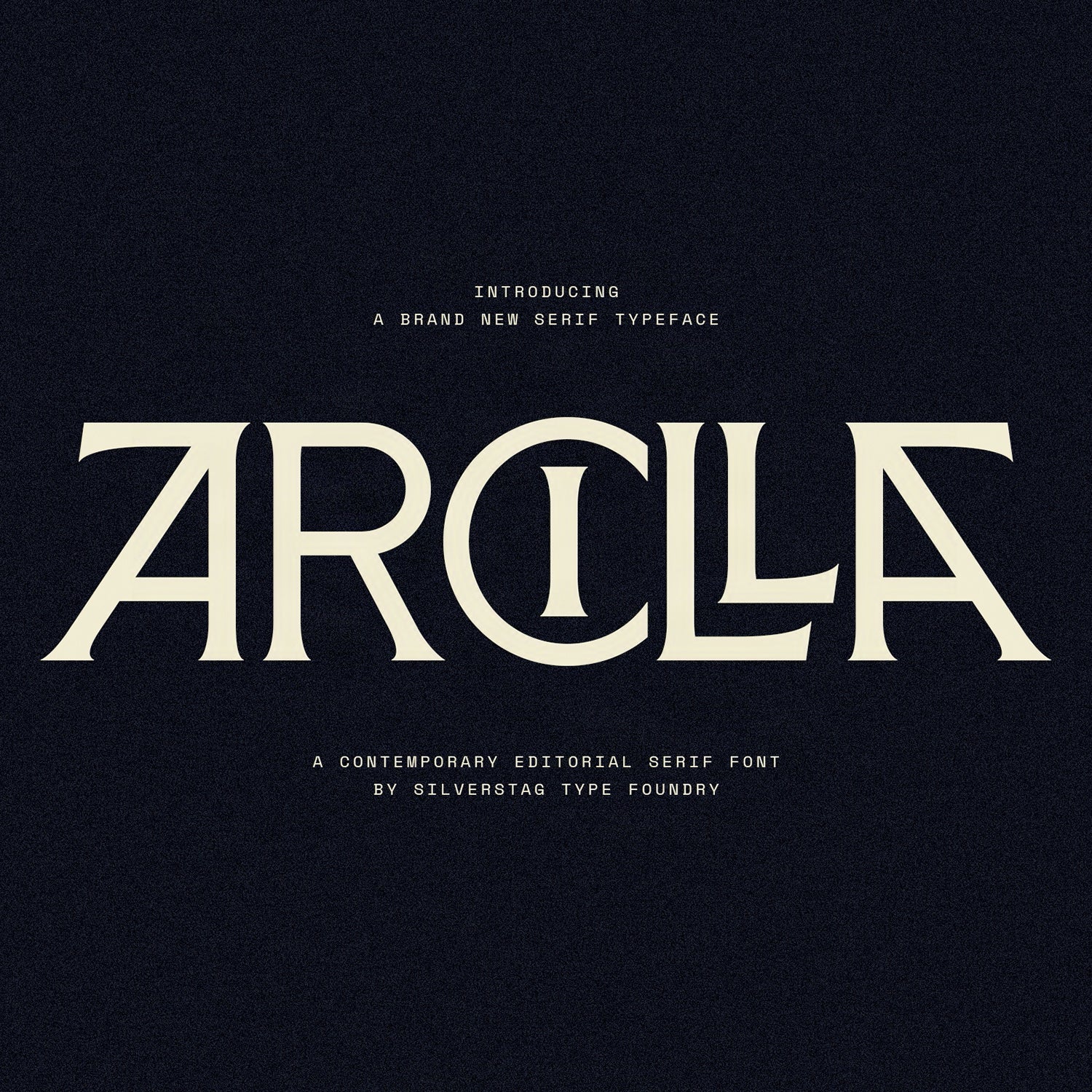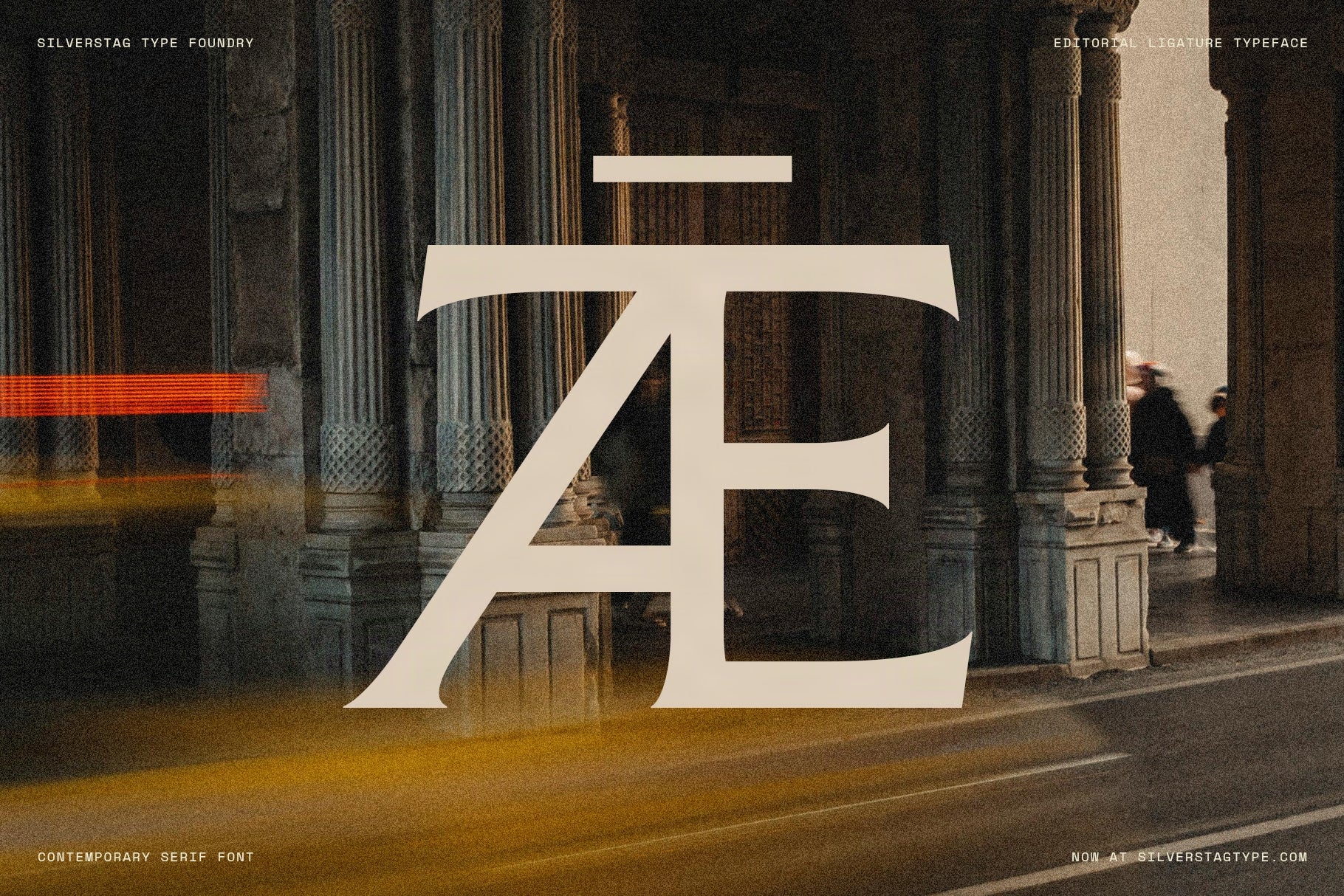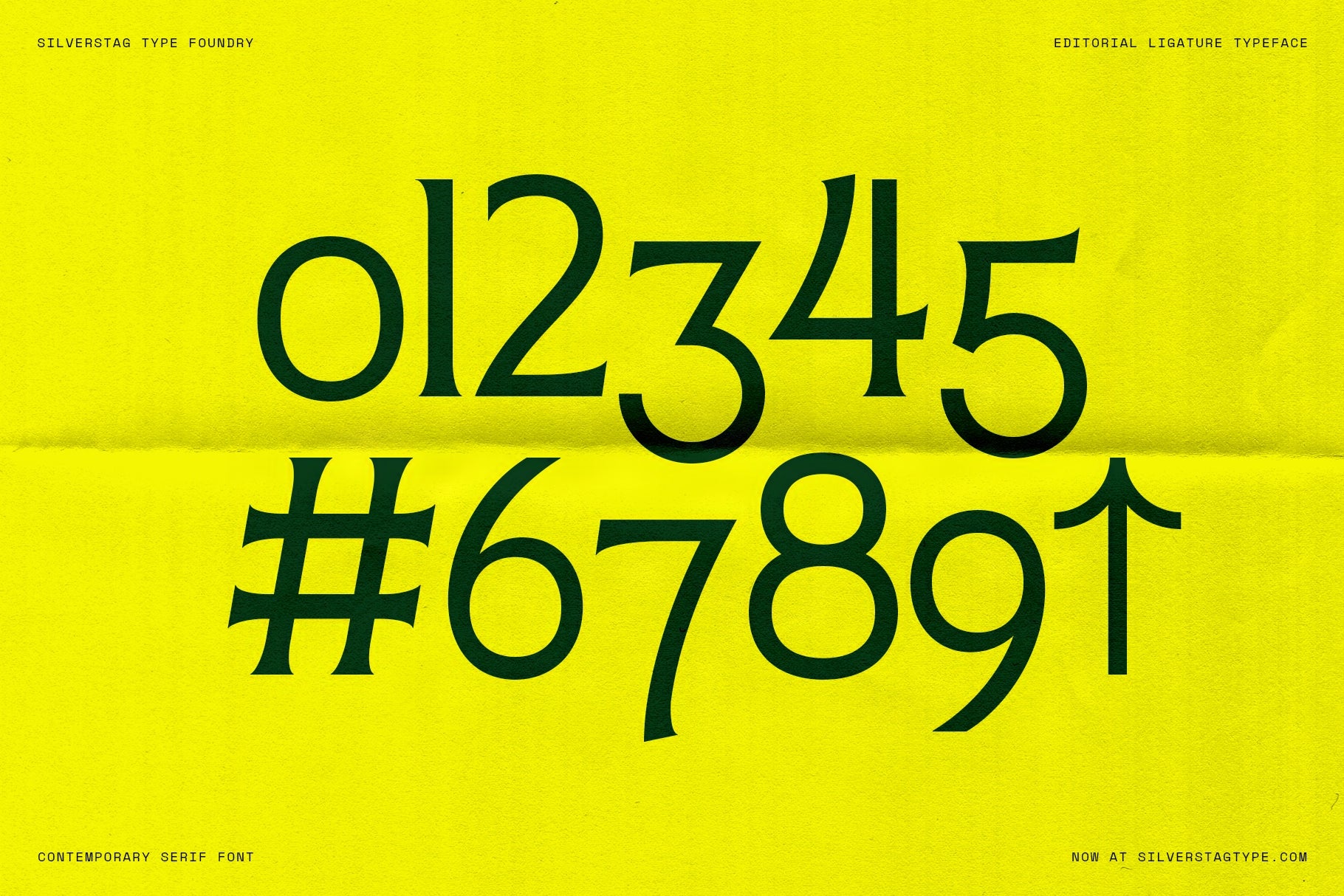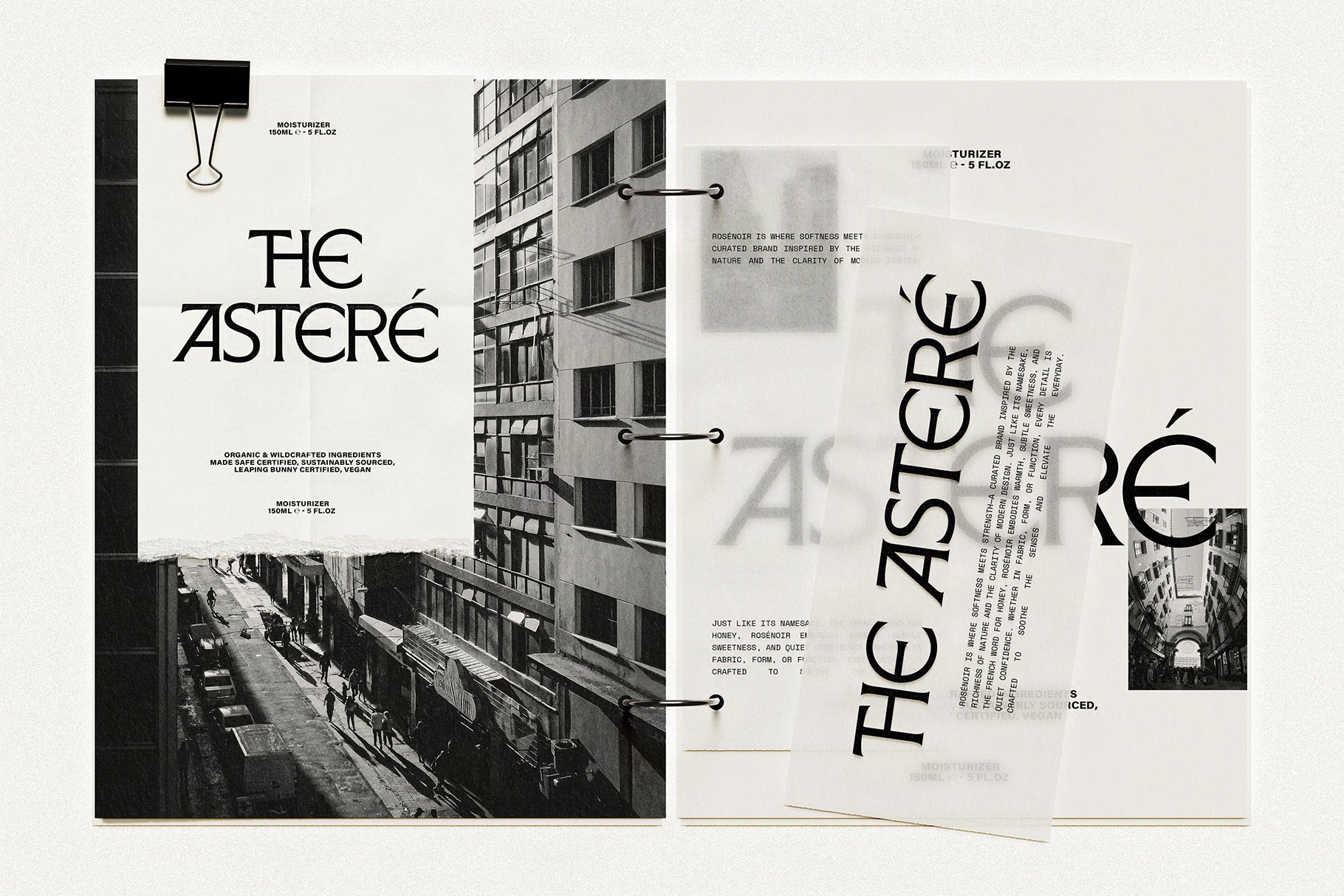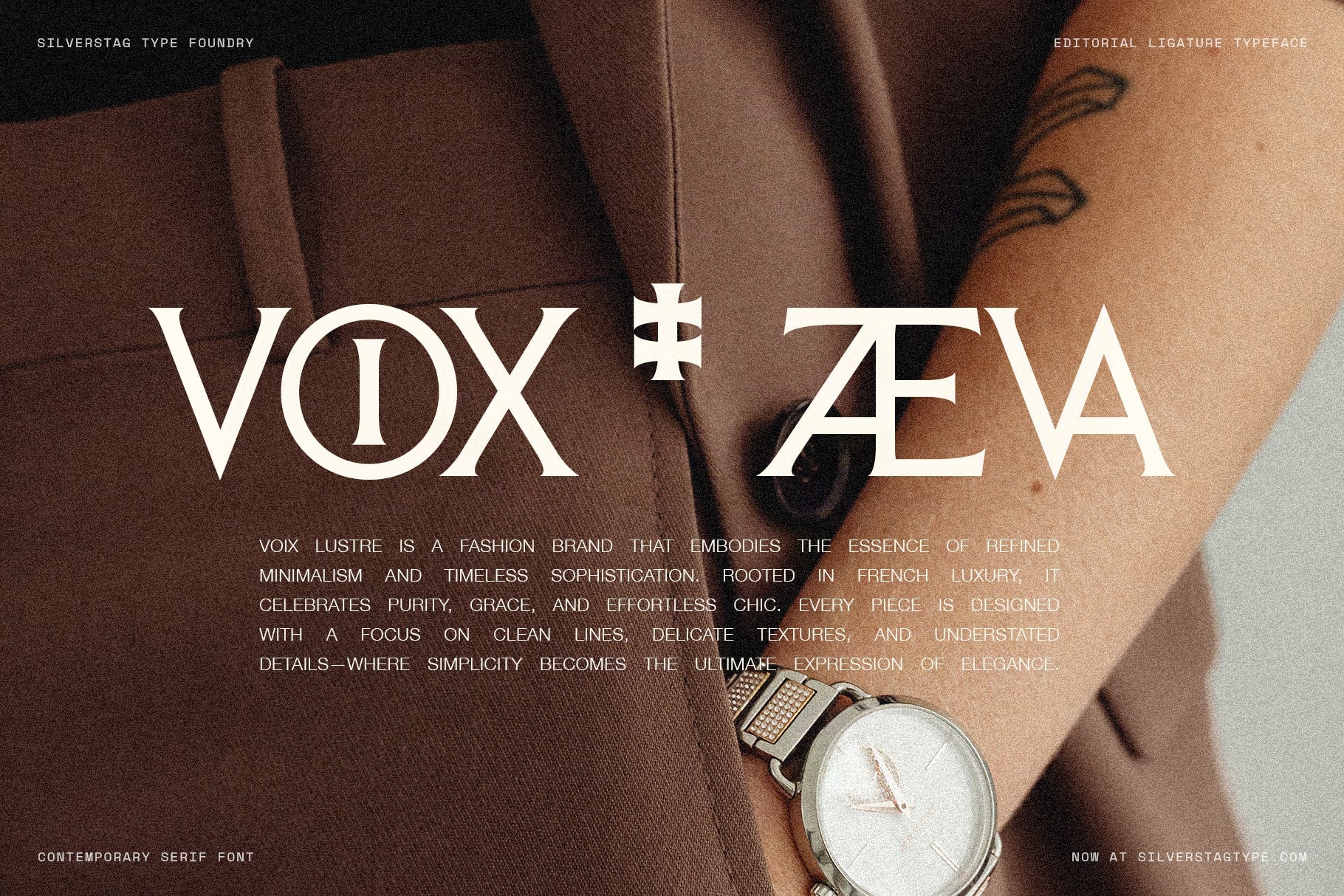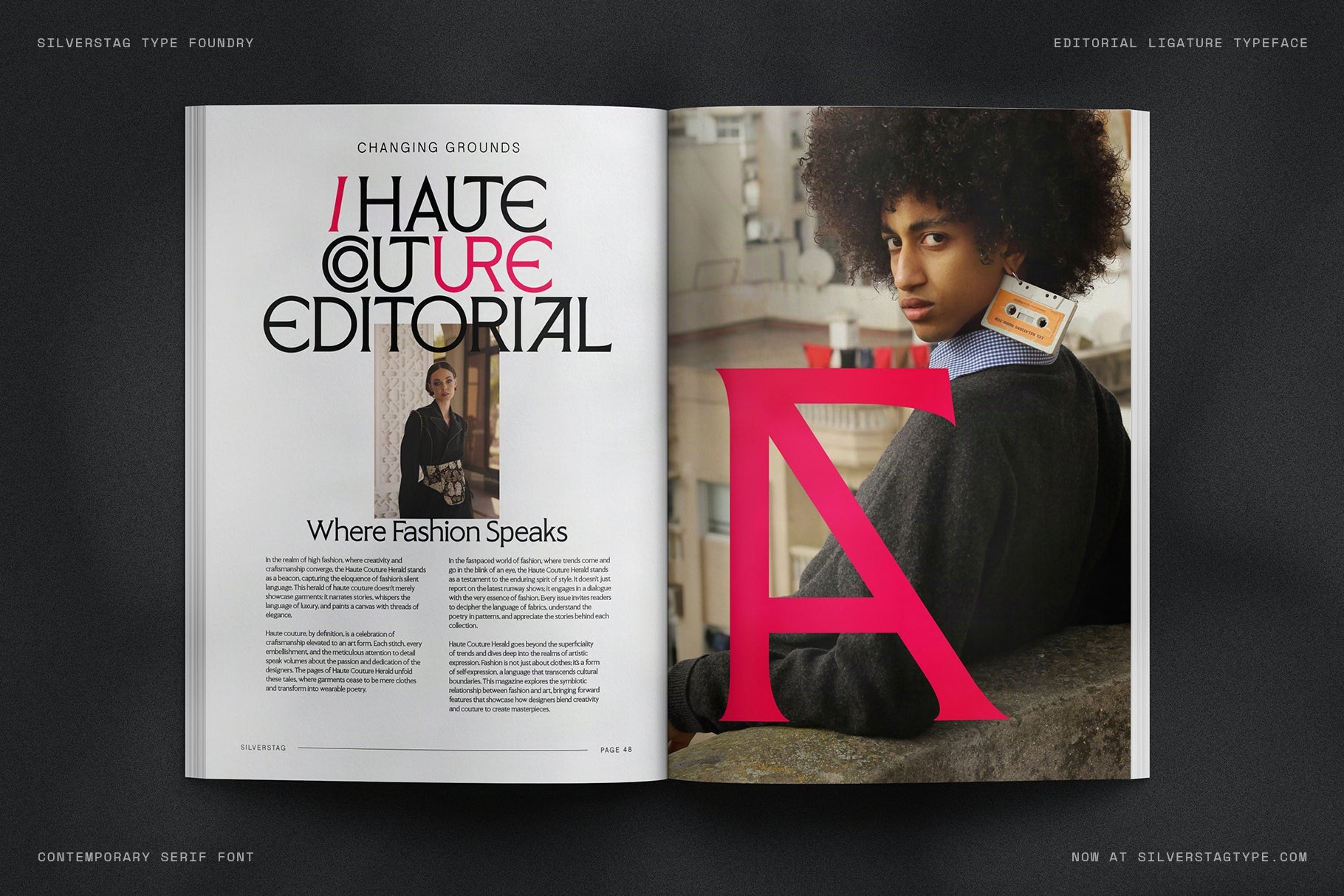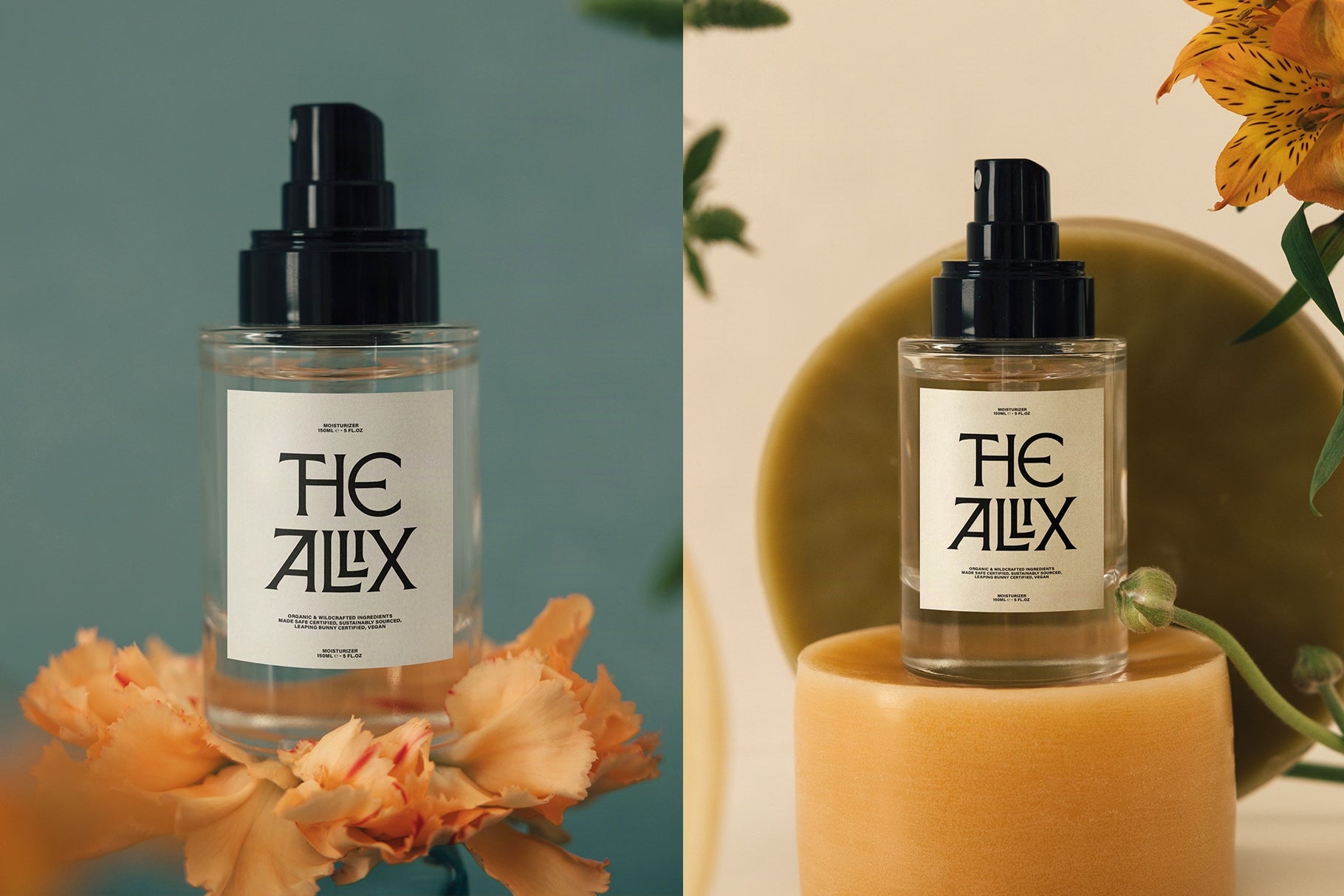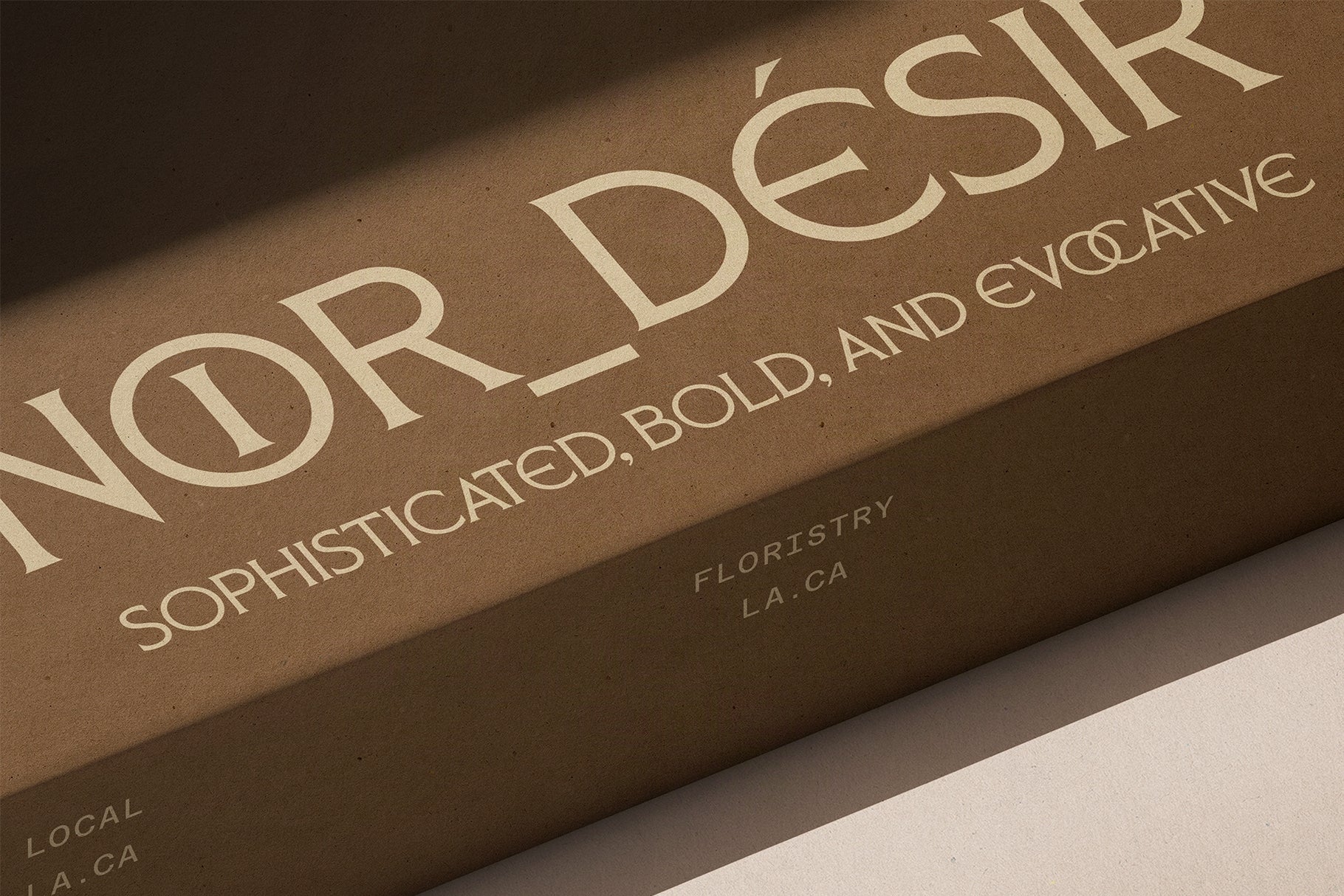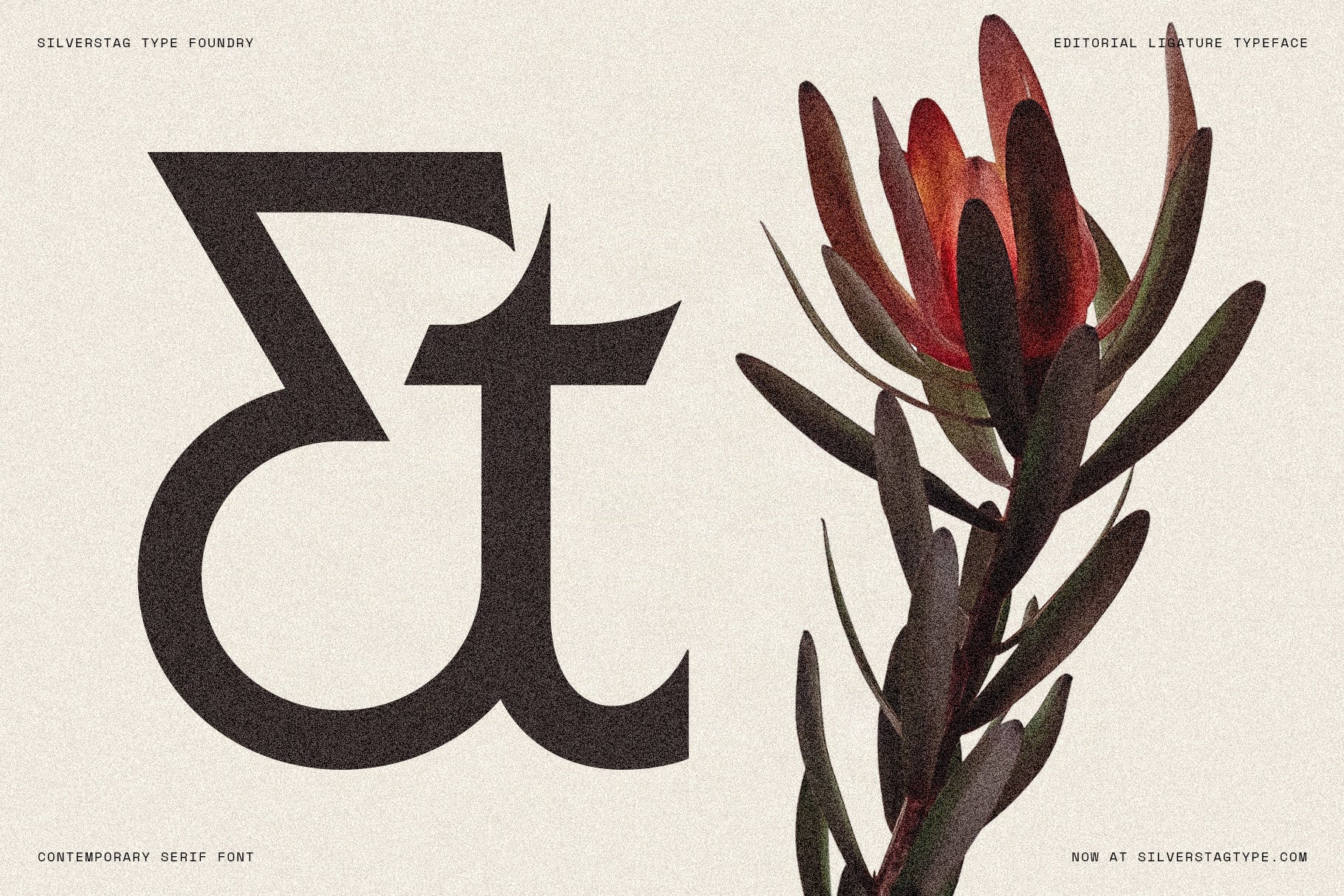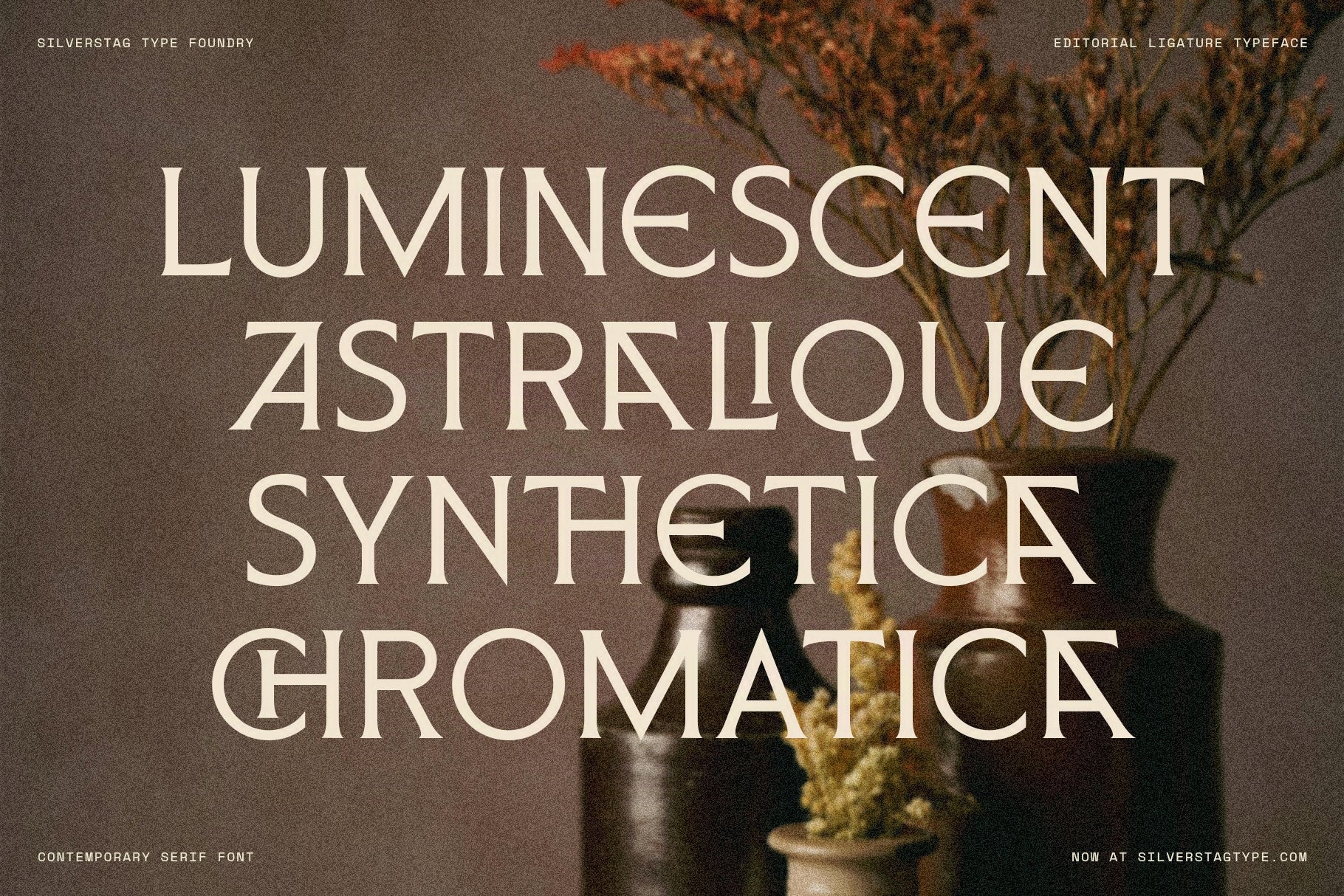
SLTF ARCILLA – Editorial Serif Typeface
SLTF Arcilla is a modern serif typeface designed for a strong editorial look, featuring sharp angles, smooth curves, and thoughtfully crafted terminals. It includes uppercase and lowercase characters, numerals, punctuation, multilingual support, and a curated set of ligatures, making it suitable for various branding and creative projects.